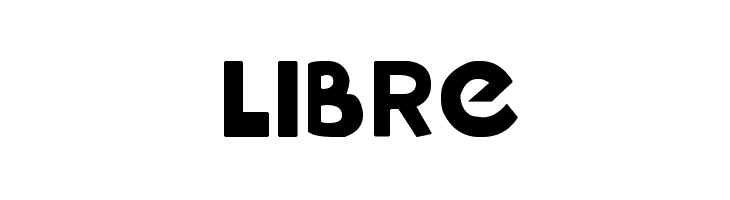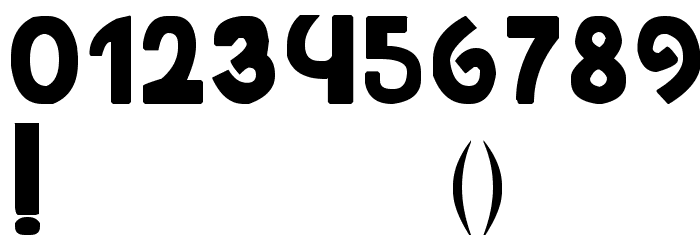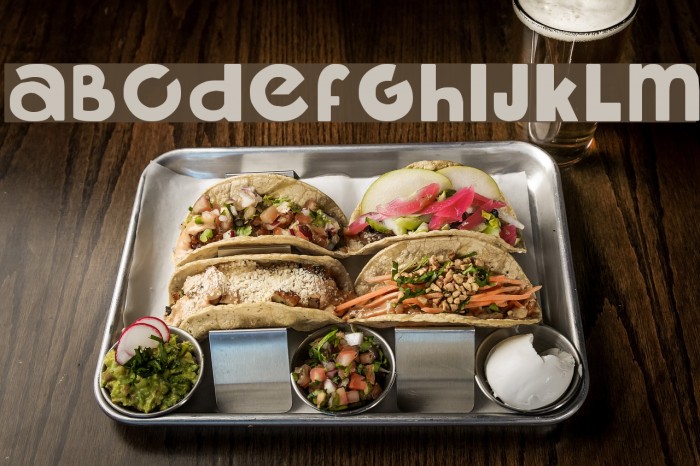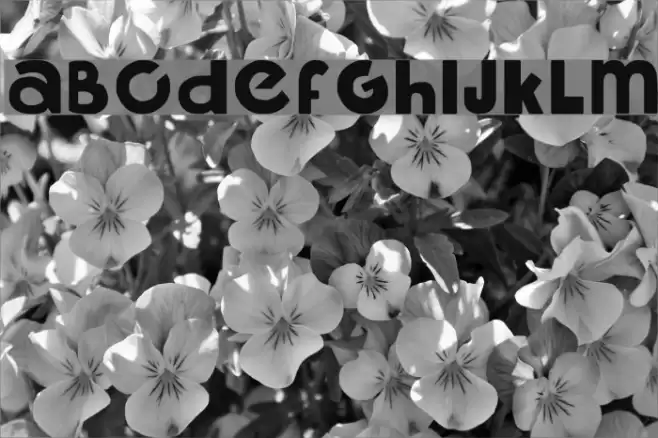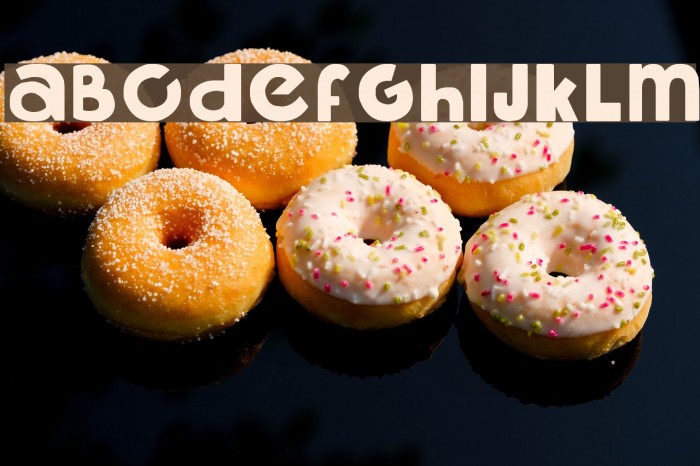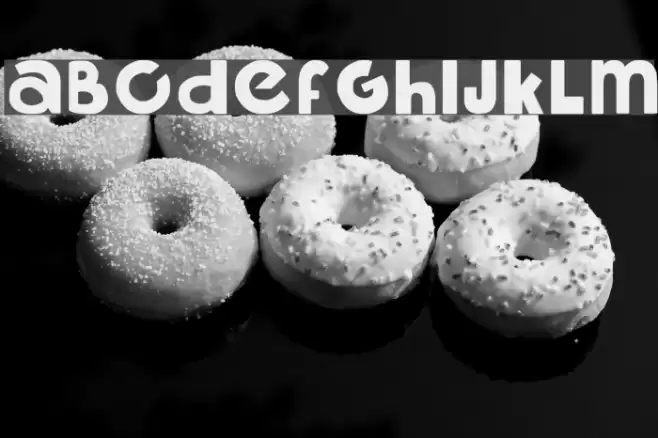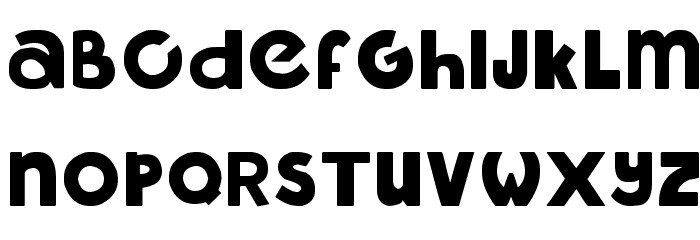
libre Font
libre Description
This font features a bold and playful design with rounded edges and a strong presence. The characters are thick and have a consistent weight throughout, giving it a robust and friendly appearance. The uppercase and lowercase letters maintain a uniform style, with the lowercase letters mirroring the uppercase in form and structure. The numbers are equally bold, ensuring readability and impact. Special characters are designed with the same playful and bold characteristics, making them stand out. This font is ideal for projects that require a fun and engaging look, such as children's books, playful branding, or eye-catching headlines.
| Overall Style | Playful, Modern |
| Use Case | Headlines, Logos, Branding |
| Proposed Projects | Ideal for children's books, playful branding, and eye-catching headlines. |